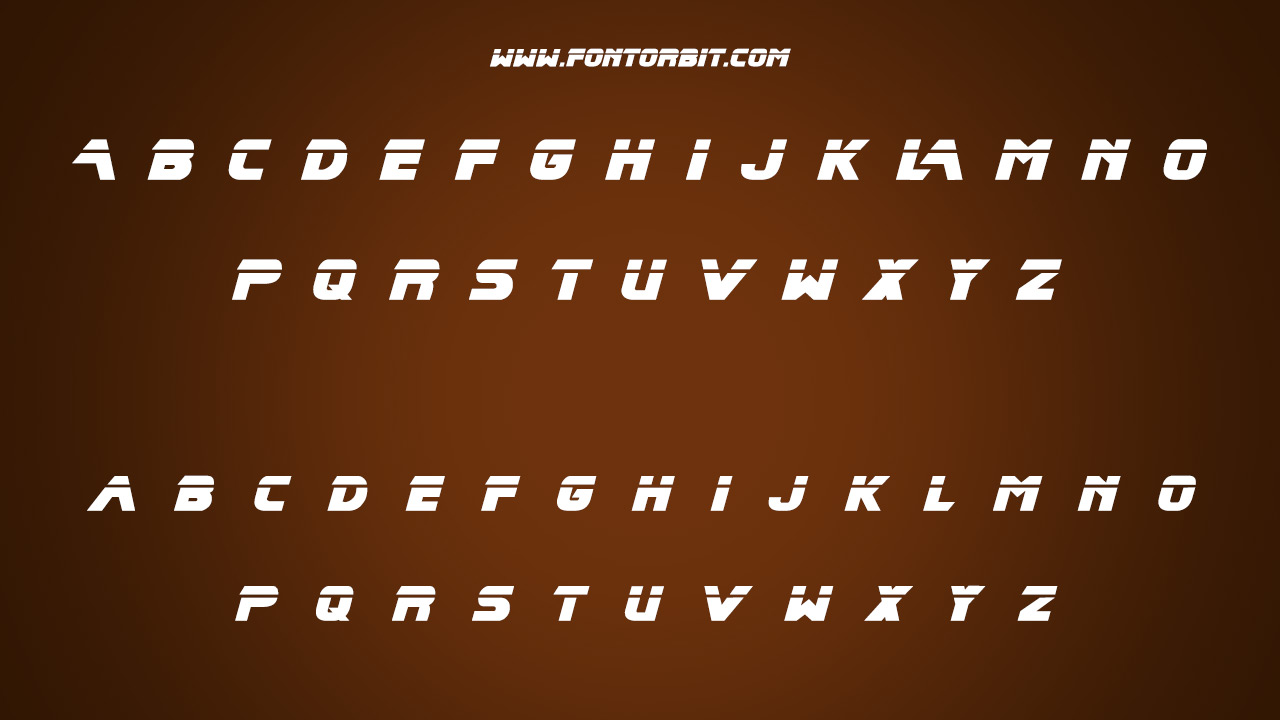
Blade Runner Font, designed by Phil Steinschneider, captures the techno and science-fiction essence of the iconic Blade Runner films. Perfect for creating futuristic and gritty text, this font is free for personal and commercial use.
You can use the Blade Runner Font to design retro-futuristic visuals, sci-fi-themed projects, and film-related graphics. Its unique, techno-inspired design is ideal for creating text that evokes the atmosphere of the Blade Runner movies. The font excels in:
- Movie logos
- Sci-fi themed graphics
- Futuristic designs
- Retro-futuristic posters
- Title sequences
The Blade Runner Font by Phil Steinschneider offers a distinctive sci-fi style that reflects the futuristic and gritty aesthetic of the Blade Runner series. Its design perfectly replicates the film’s iconic text and creates compelling sci-fi visuals.
1.What Are The Advantages Of Using The Blade Runner Font Over Other Fonts?
It provides a futuristic, techno look that closely aligns with the Blade Runner film’s aesthetic.
2.What Are The Color Options Available For The Blade Runner Font?
The font is monochrome; color is applied through design software or text editors.
3.What Are The Recommended Font Pairings For The Blade Runner Font?
Pair with clean, modern fonts like Helvetica or Futura to highlight its futuristic style.
5.What Is The History Of The Blade Runner Font?
Inspired by the 1982 and 2017 Blade Runner films, the font is designed to echo the movies’ futuristic themes.
6.What Type Of Font Is Blade Runner Font?
It is a techno, science-fiction typeface designed to reflect the look and feel of the Blade Runner series.